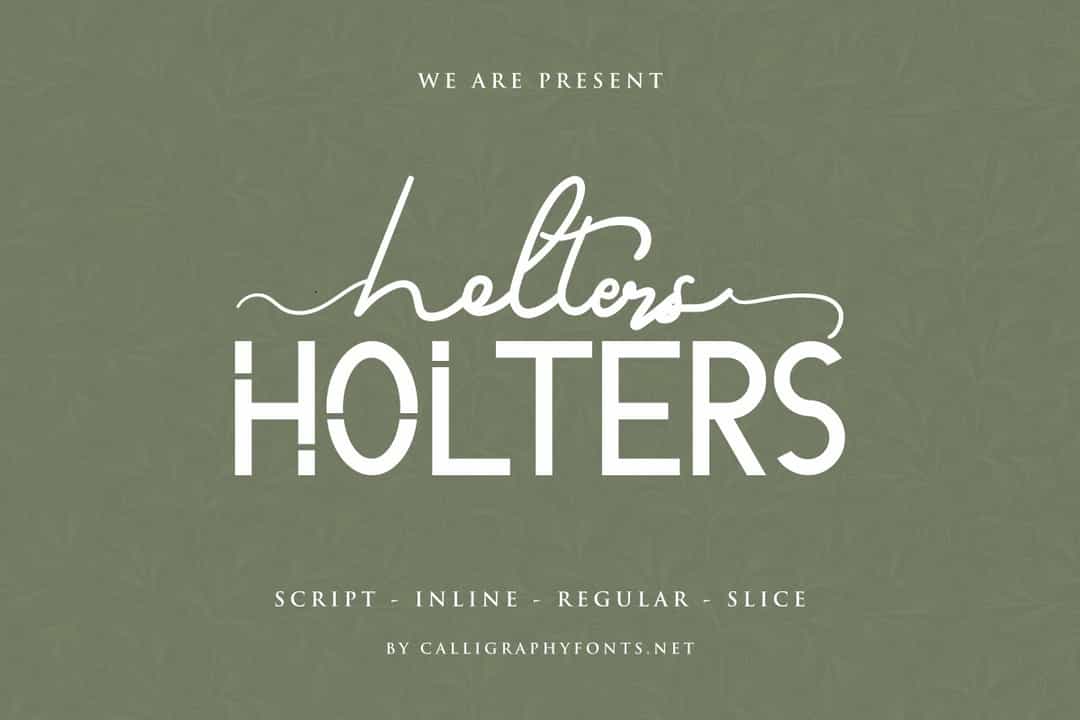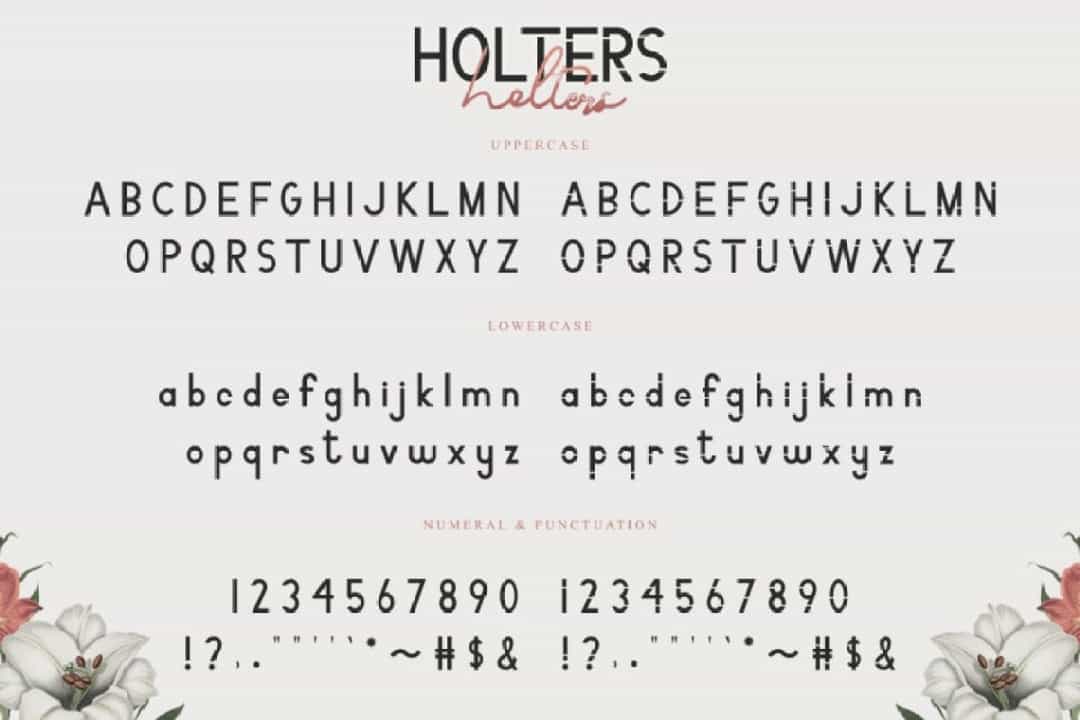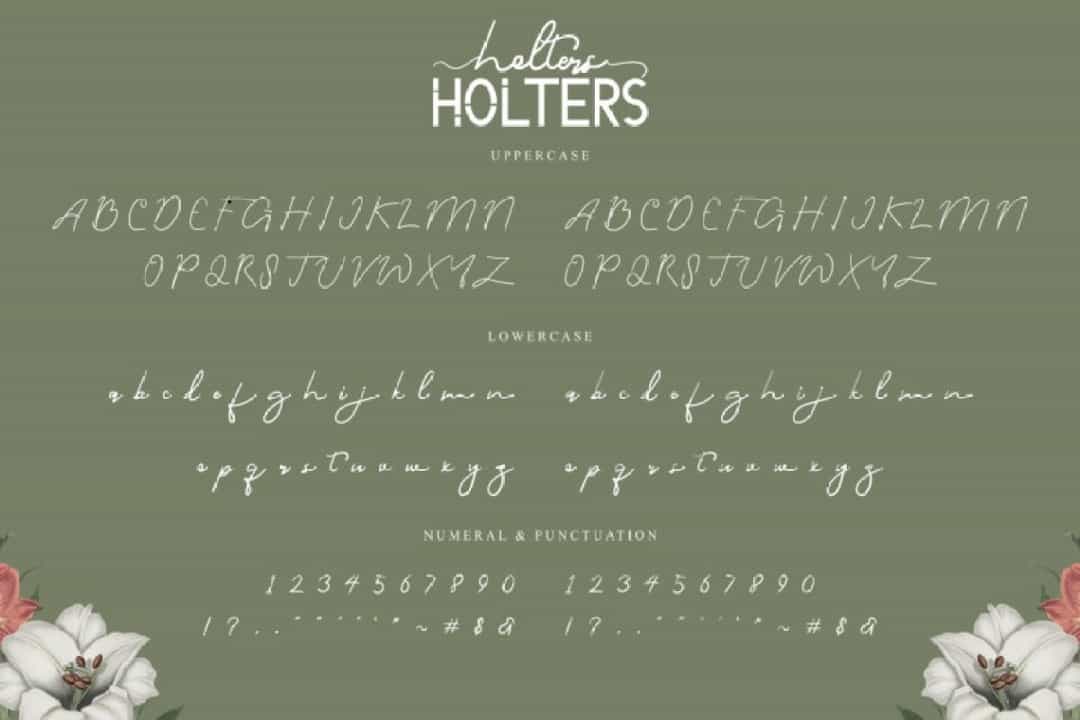
Discover Holters Font Duo, part of the Sans Serif Handwritten Script Basic collection—a versatile and unique font perfect for adding a personal touch to your projects. Download it for free and enjoy crafting designs with style, from invitations to social media posts. This font is available exclusively for personal use, giving you the freedom to create without limits. Unlock your creativity with Holters Font Duo today!
Thus, Holters is a script and basic font set composed of different styles that all exhibit contemporary refinement, stylishness, tradition, and style.